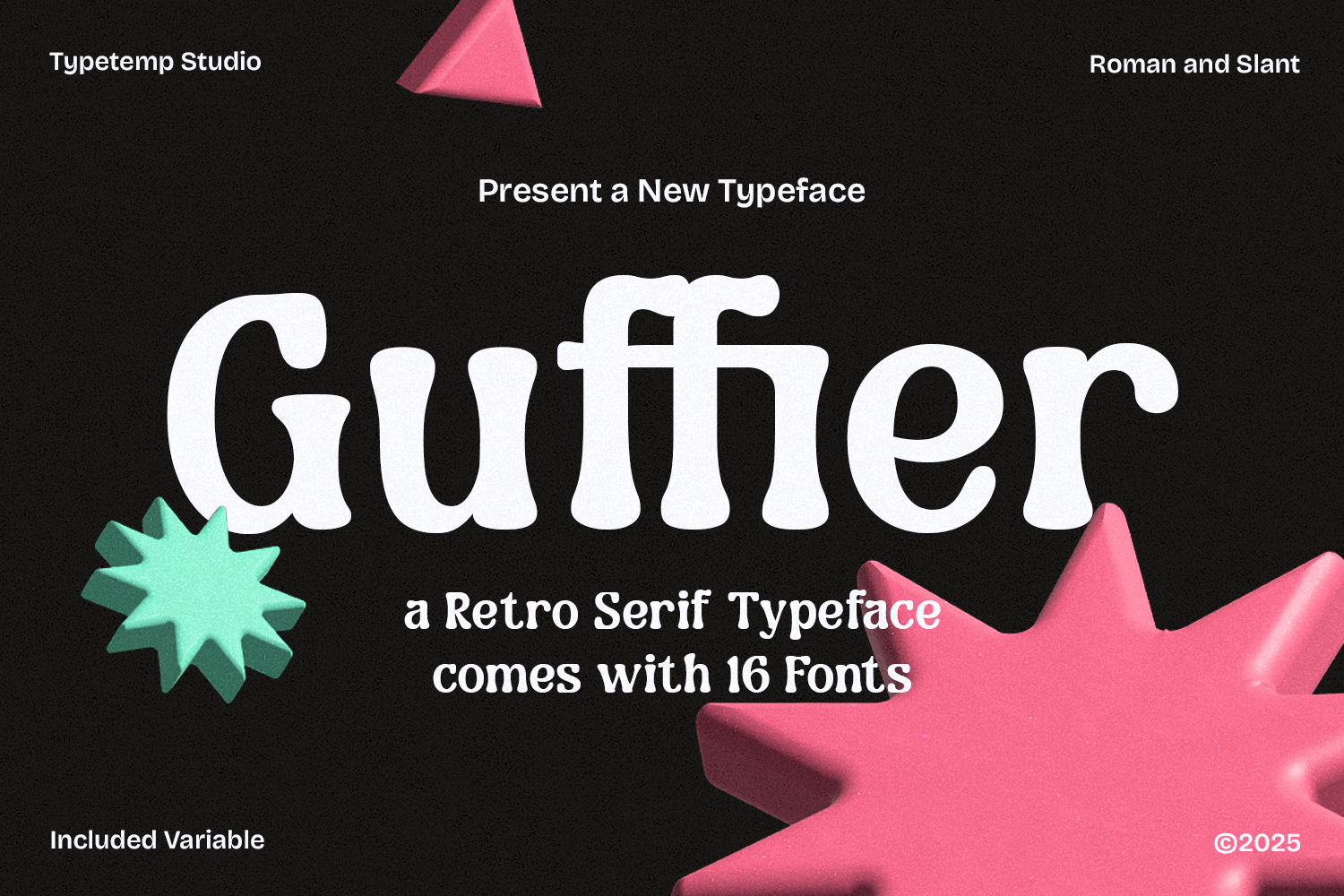
Guffier - Retro Display Typeface
Guffier Typeface is a expressive, and playful retro-serif typeface that captures the soulful essence of the 80s. This font blends groovy, fluid curves with a modern high-contrast serif structure, making it a standout choice for contemporary designs with a vintage soul.
Whether you are aiming for a psychedelic poster, a trendy brand identity, or eye-catching editorial layouts, Guffier provides the versatility you need. It comes packed with 16 styles—ranging from elegant Romans to dynamic Slants—and includes a Variable font file for ultimate creative control over weight and slant.
Full multilingual character set
OpenType features such as ligatures and alternates